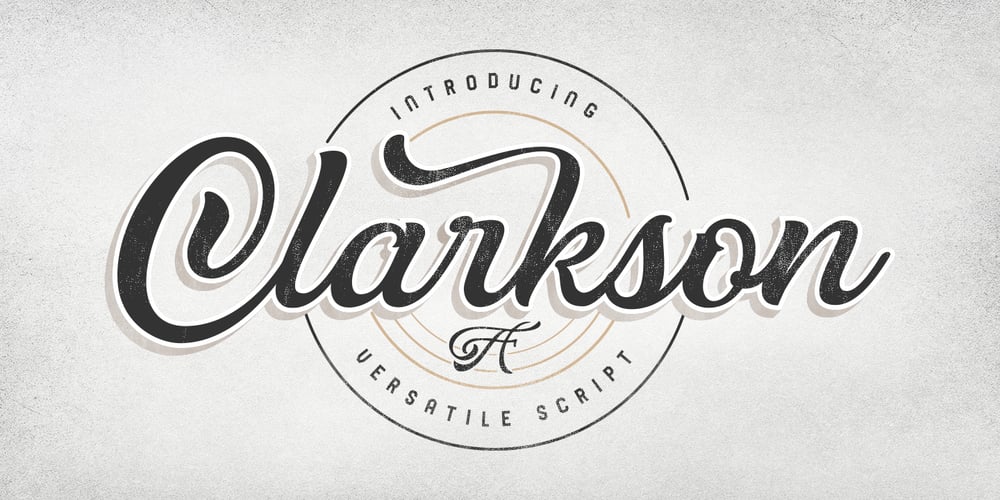
Clarkson Script Font Family was designed by Adam Fathoni Haris and published by Adam Fathony. Clarkson Script contains 1 styles and family package options. Inspired by so many brush lettering around the trend last year, Clarkson Script was created with manual brush pen and refined in digital version. The Concept of Clarkson Script is combining the style of a feminine script and a masculine style to help other designer to create more easily digital lettering and other purpose.